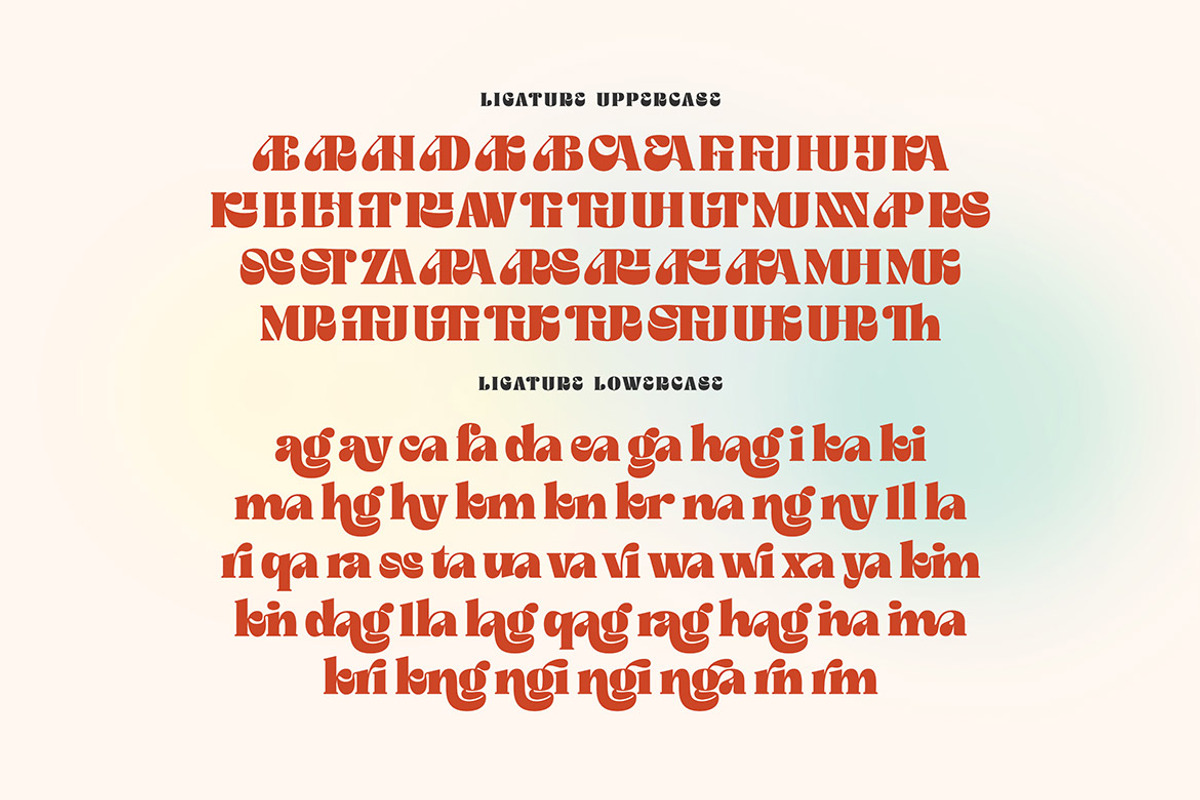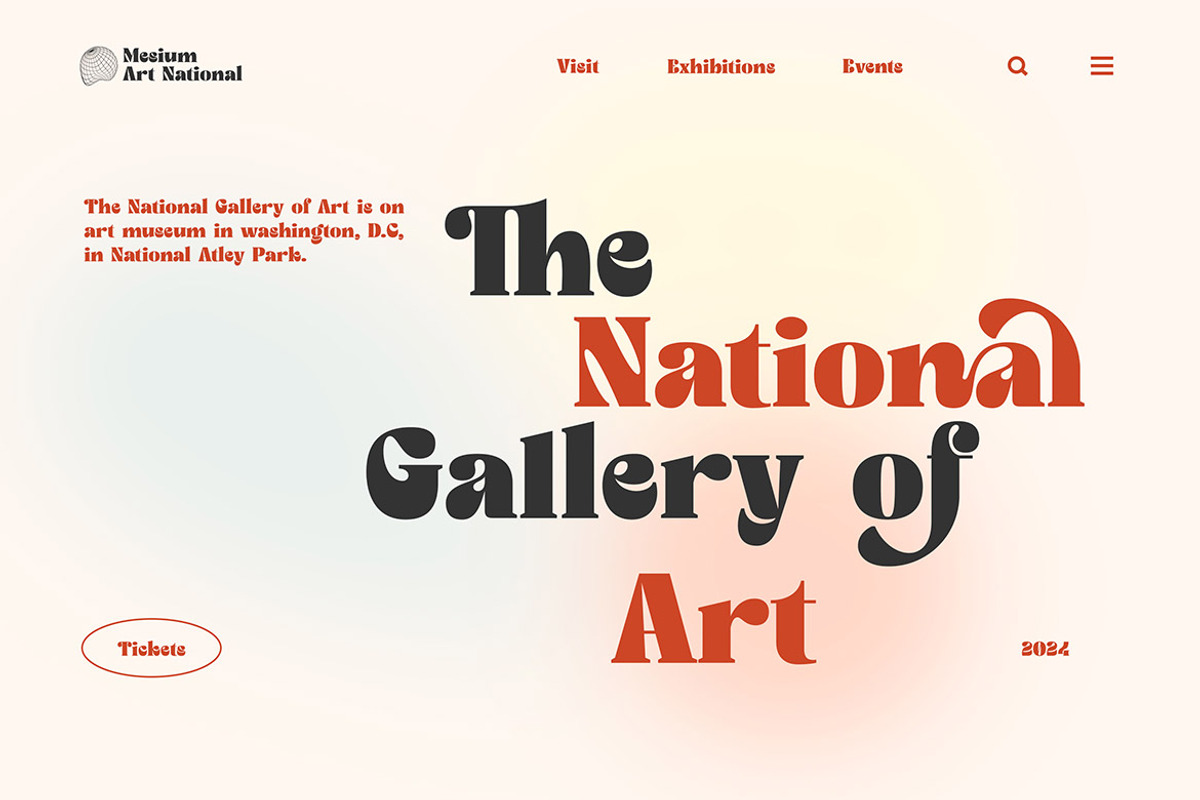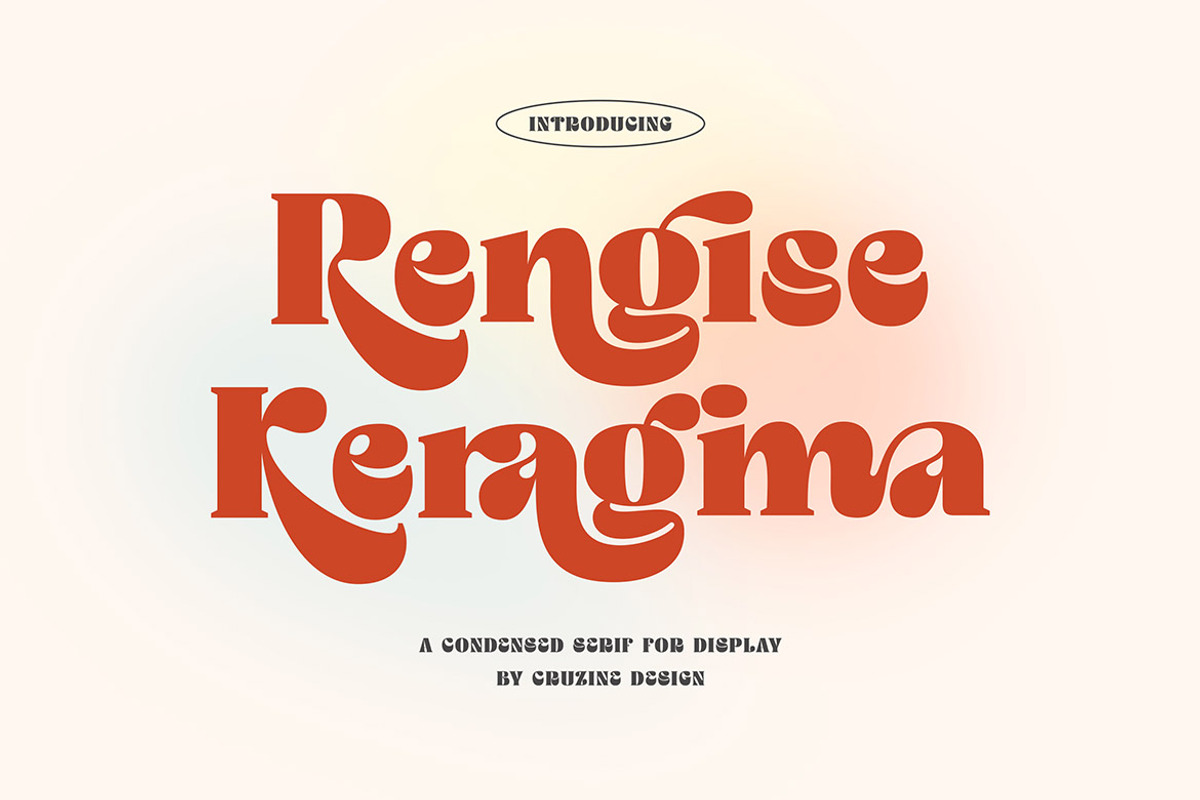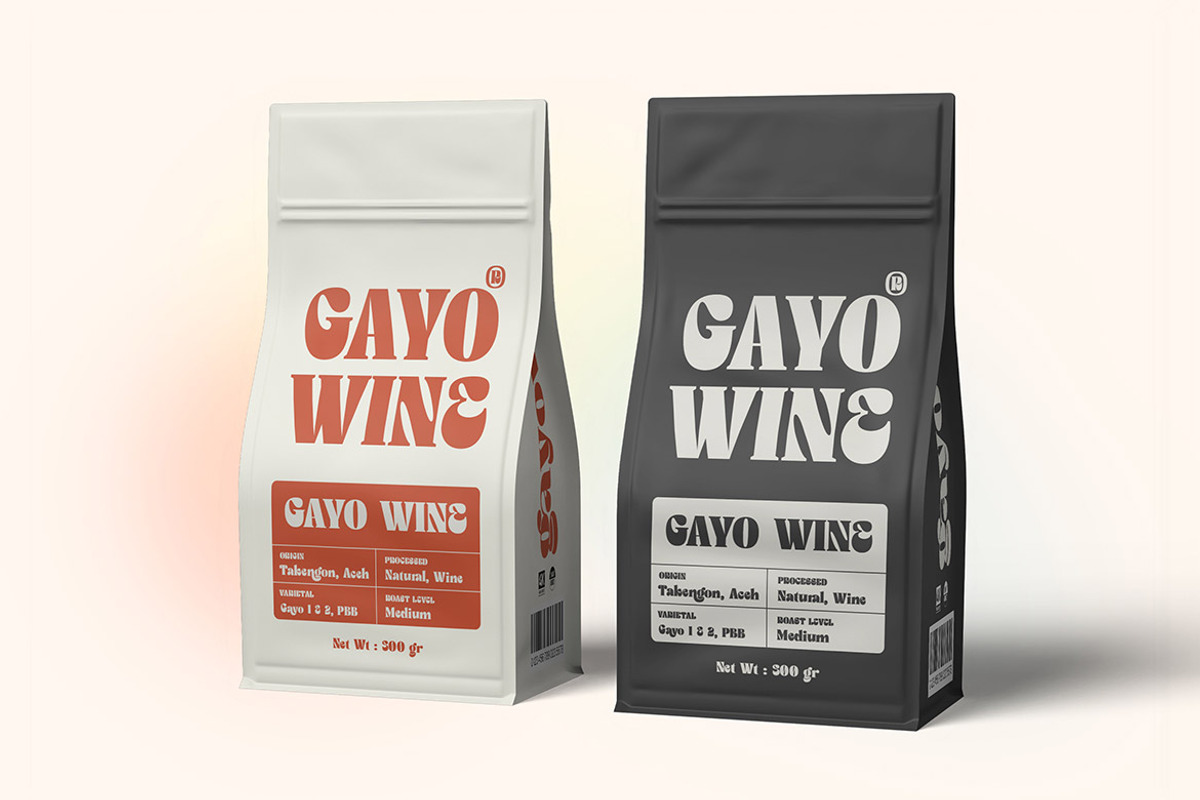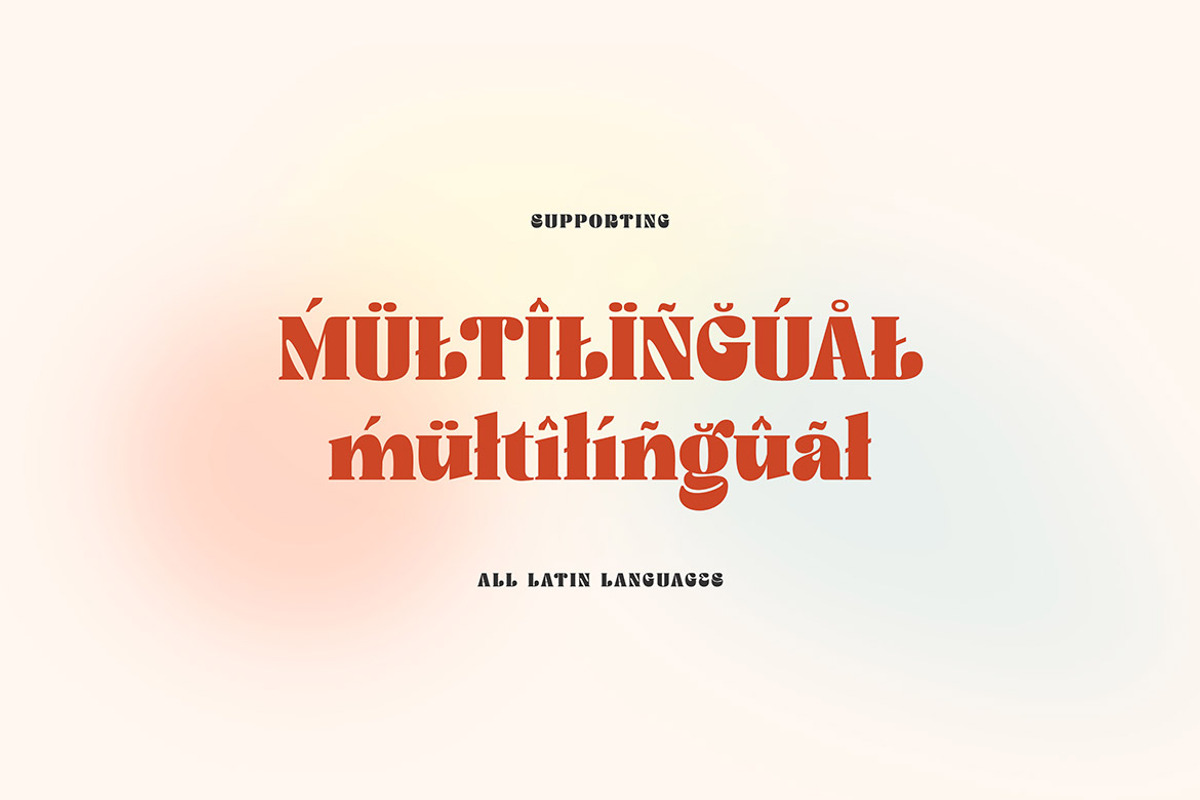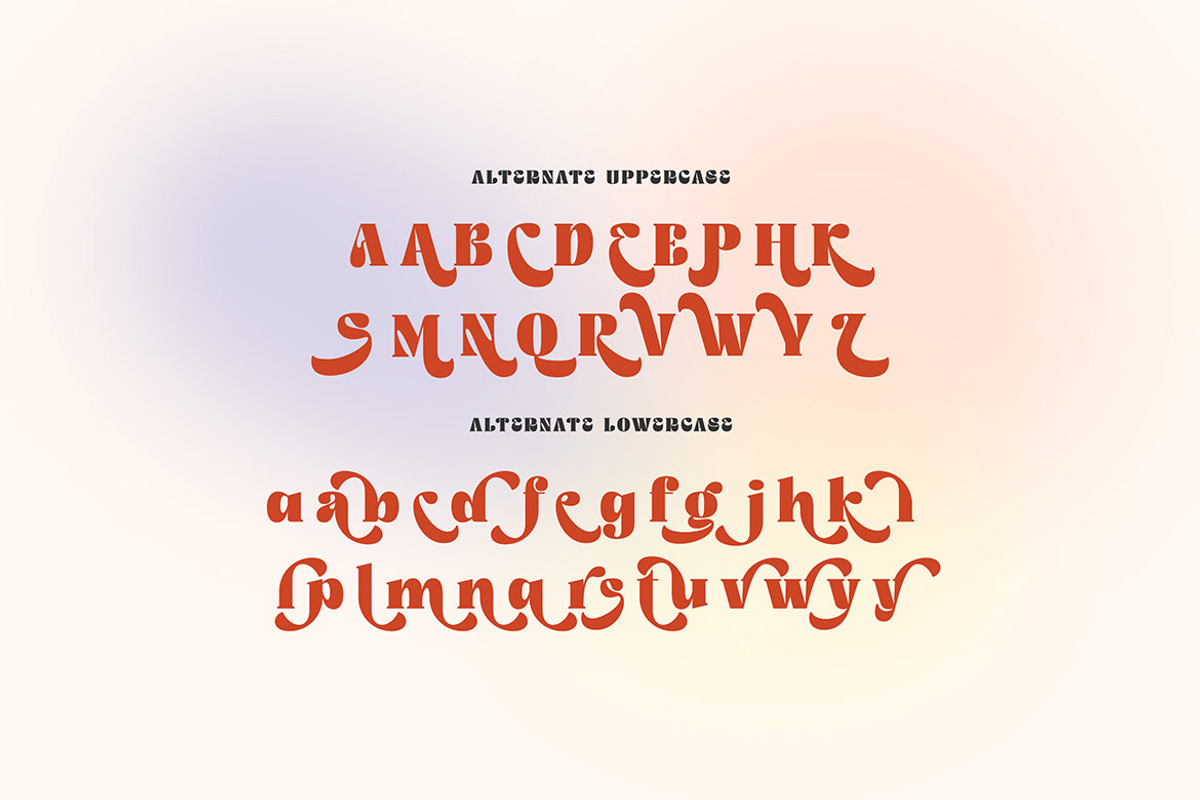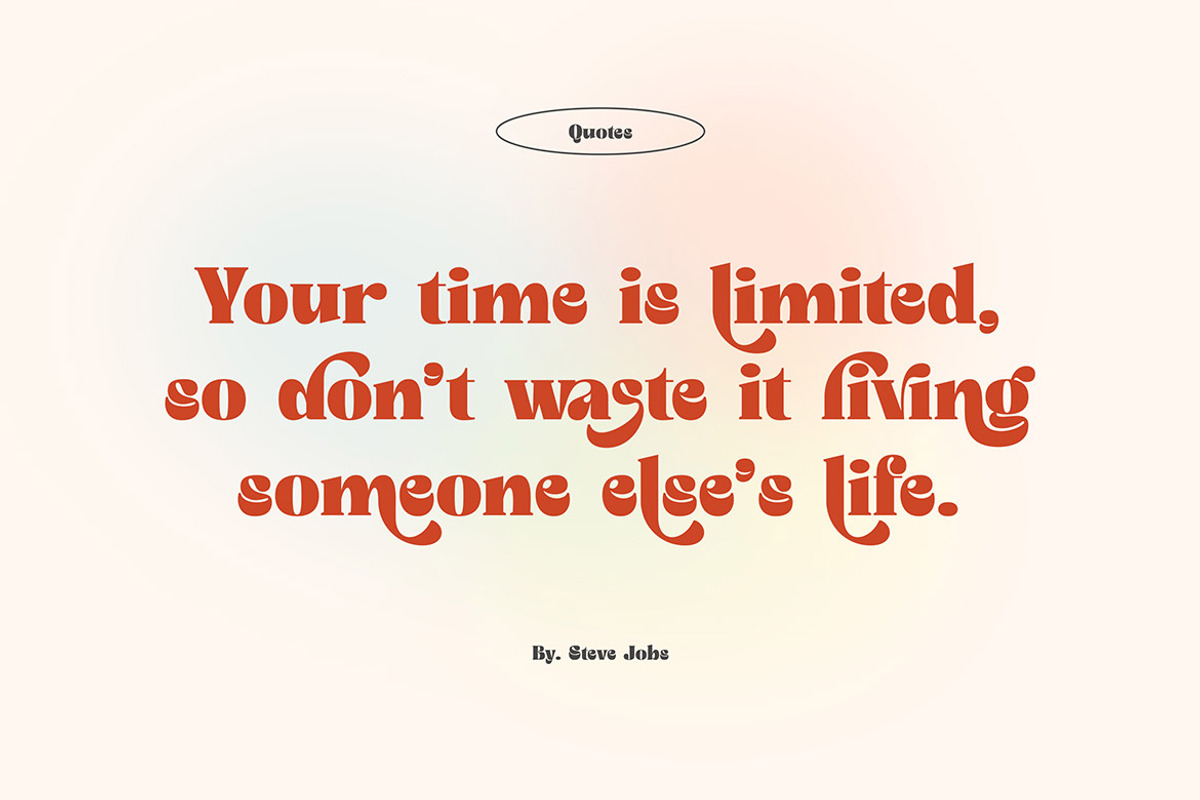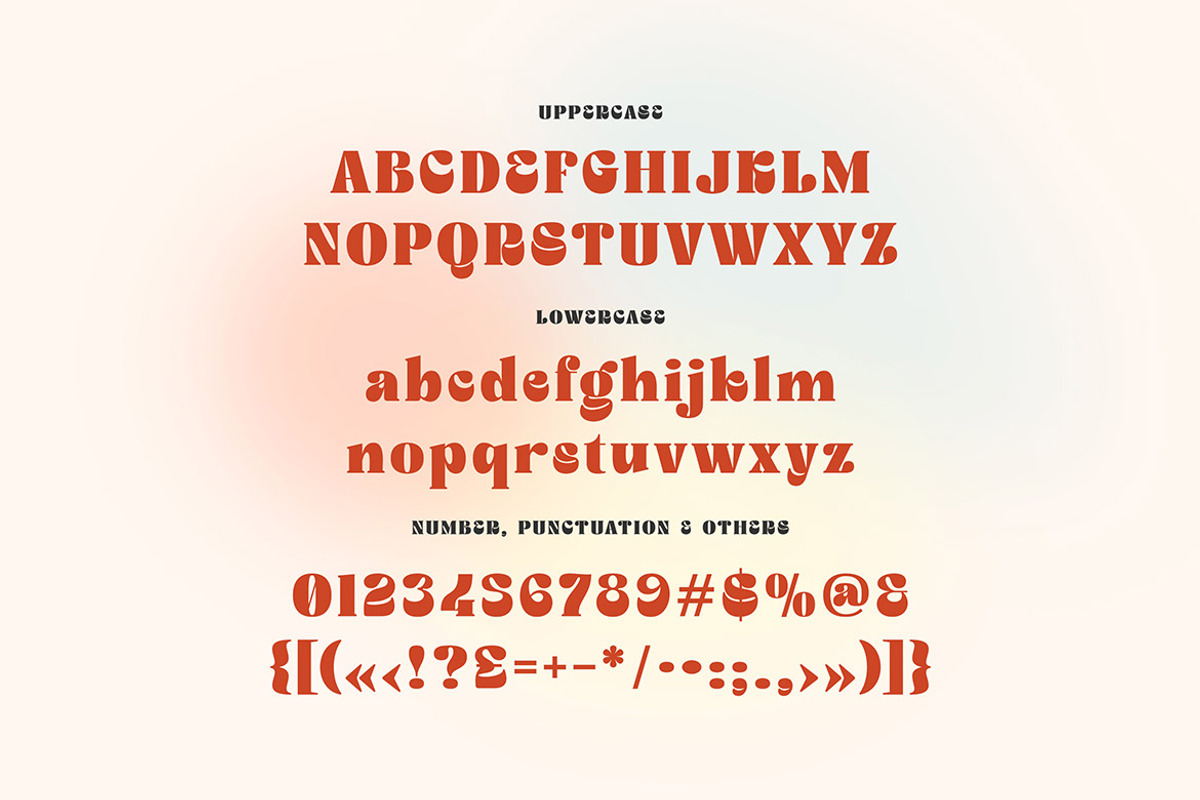
Rengise Groovy Serif
Playful, groovy, funny,bold & retro style display serif font for your new projects. Funky and quirky style on Rengise font will be great for any creative branding project. Lot of alternates and ligatures will help you to create unique and original logo design or website header! Enjoy :)
- Alternate characters
- Lot of ligatures
Great for modern branding projects!!